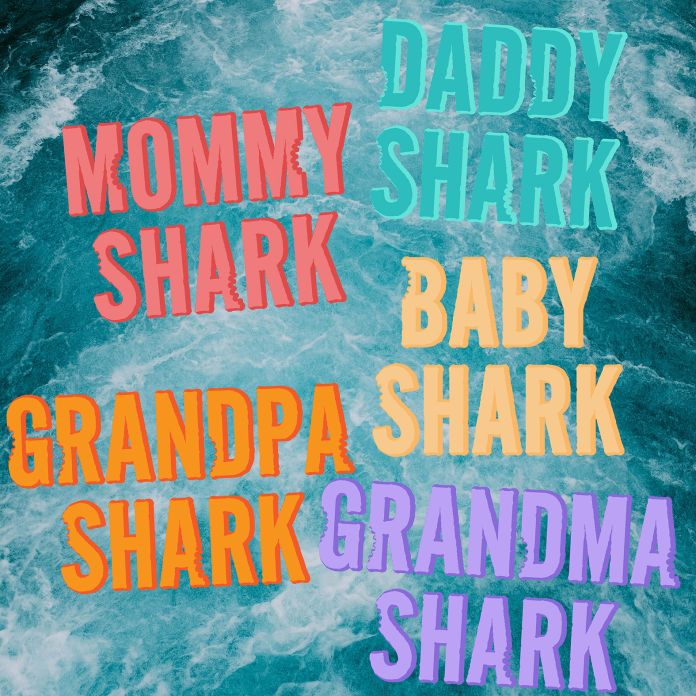
This full-color font bundle features five font full-color alphabets, each with an emphasis on a different member of the shark family. The uppercases has bites while the lowercases do not. These fonts works best for titles, displays, posters and more. Please note color fonts will show as black in non compatible programs. These font types are compatible with Silhouette Studio.